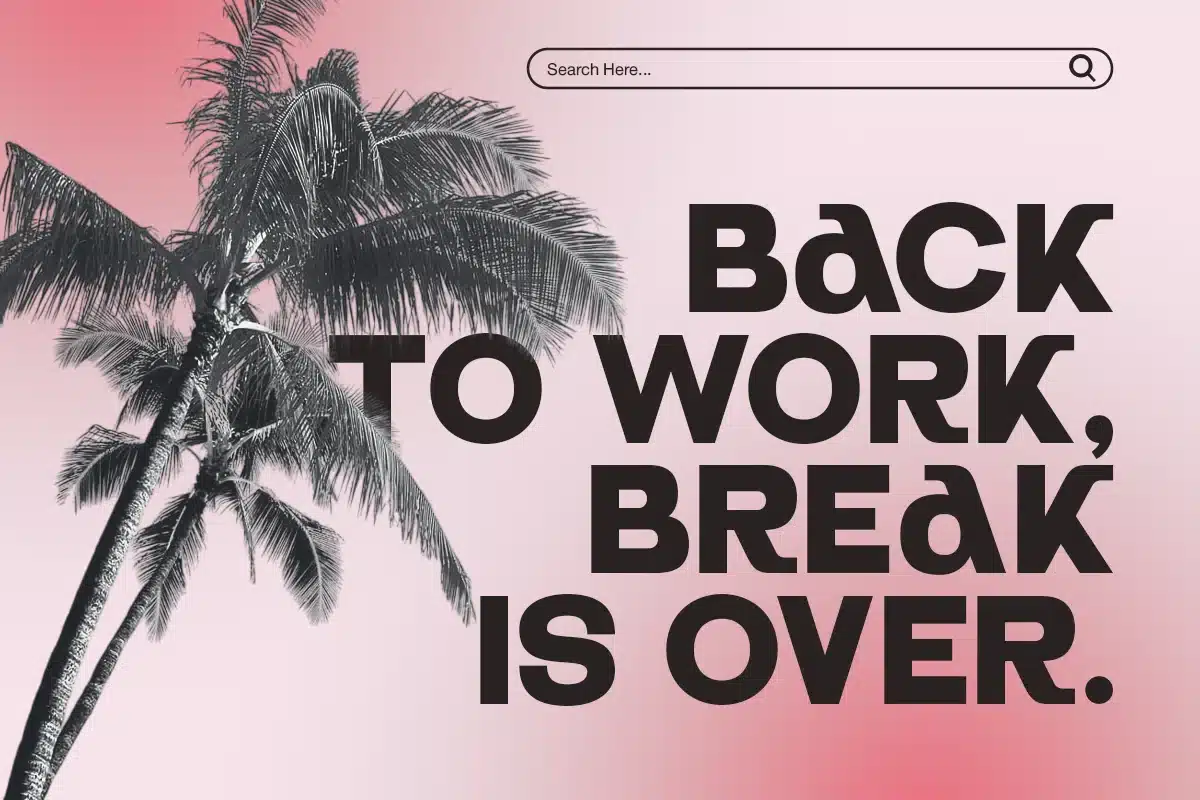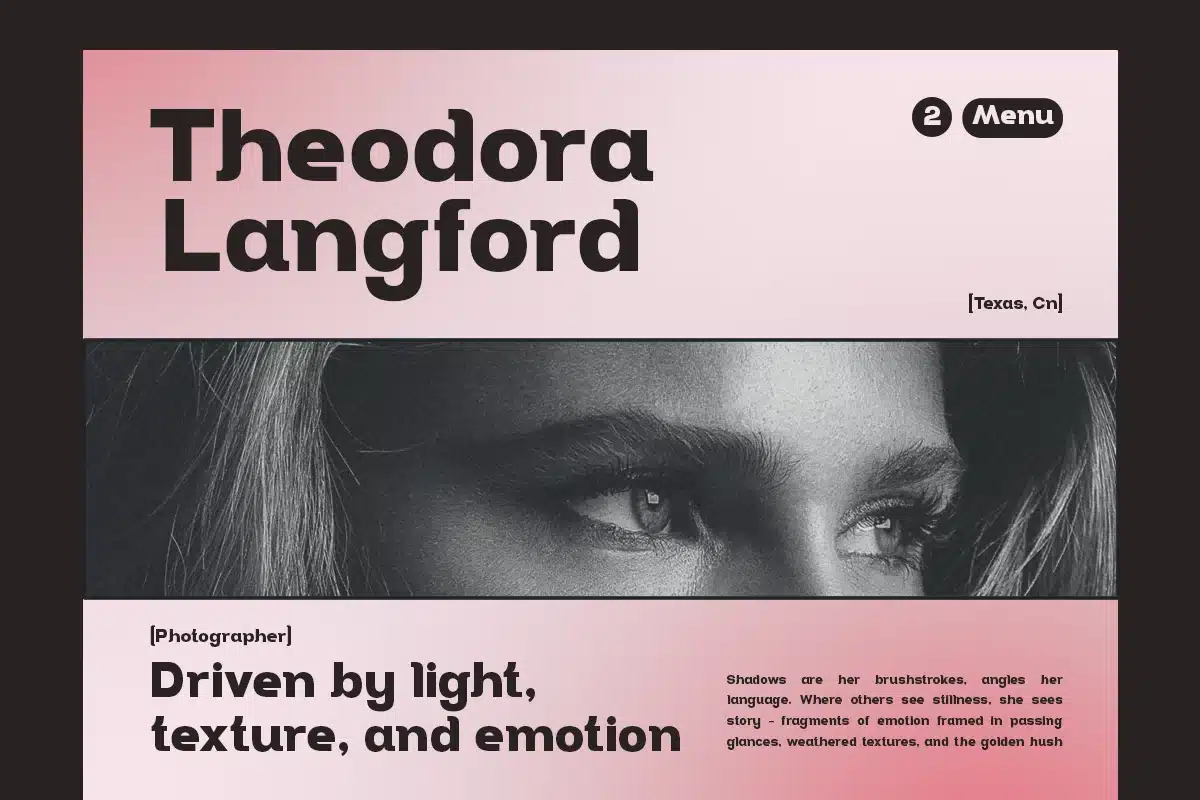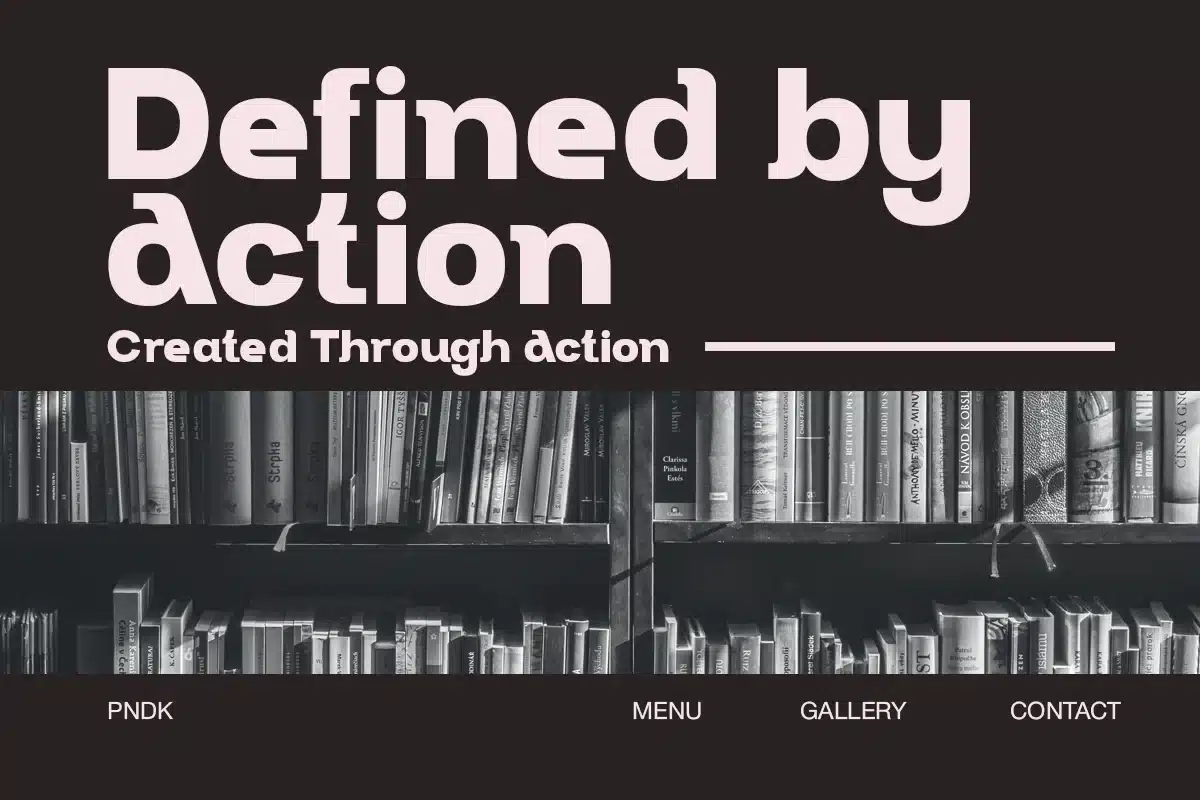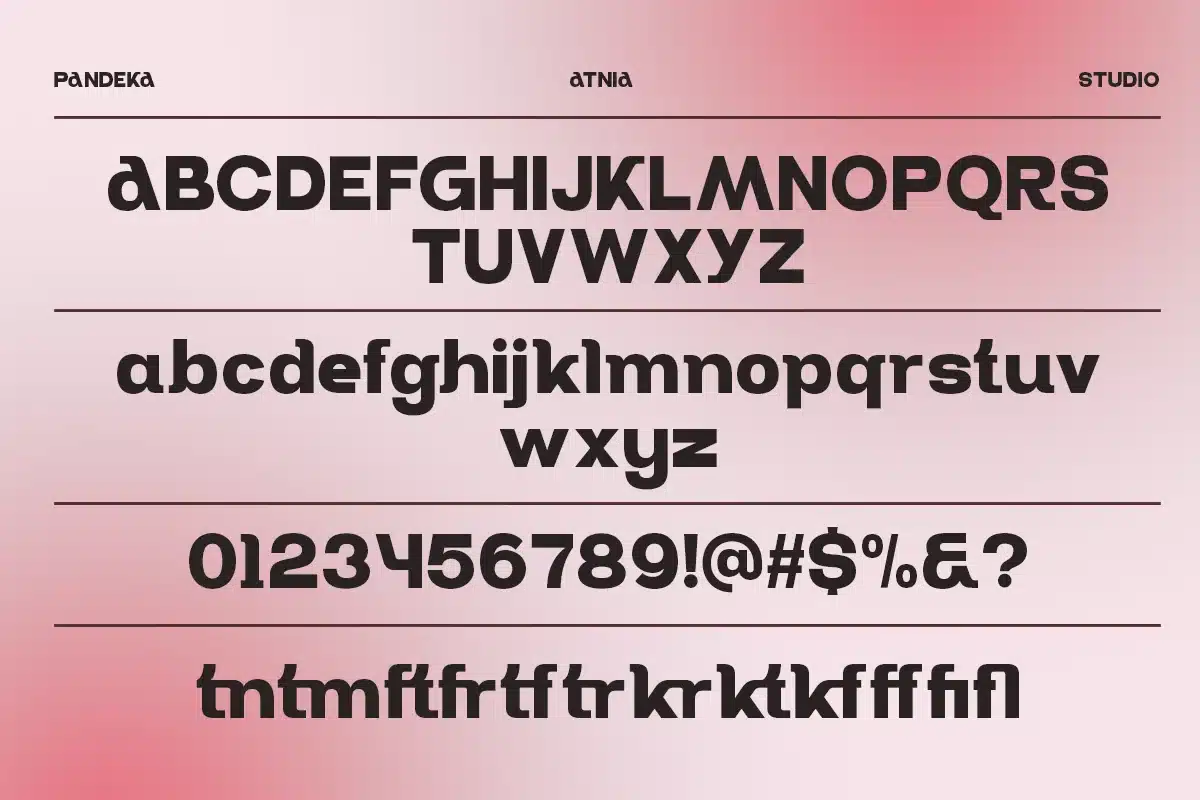
Minimal Modern Geometric – Atnia Font
Atnia is a minimal and modern geometric sans serif with clean lines and a bold personality. Designed for digital creators and contemporary branding, Atnia brings a confident tone through its balanced letterforms and modern aesthetic.
This font comes in 1 style: Regular — featuring uppercase, lowercase, numerals, punctuation, and 7+ unique ligatures to add variety and flair to your typography. Perfect for logos, posters, web design, and social media content, Atnia delivers a refined and timeless modern look.
- 1 Style: Regular
- Full Character Set: Uppercase, lowercase, numbers, symbols, and punctuation
- 7+ Ligatures